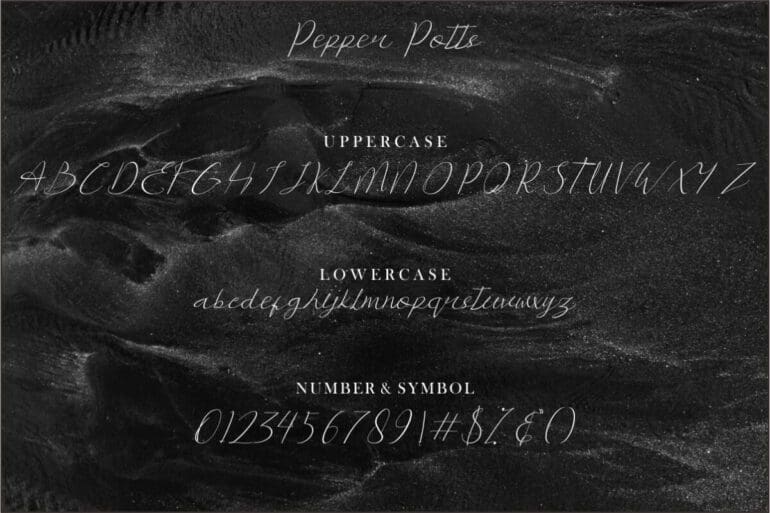
Pepper Potts Font
Pepper Potts this is Handwritten font. It’s perfect for your design such as logo, branding, graphic design, packaging, social media posts, etc.